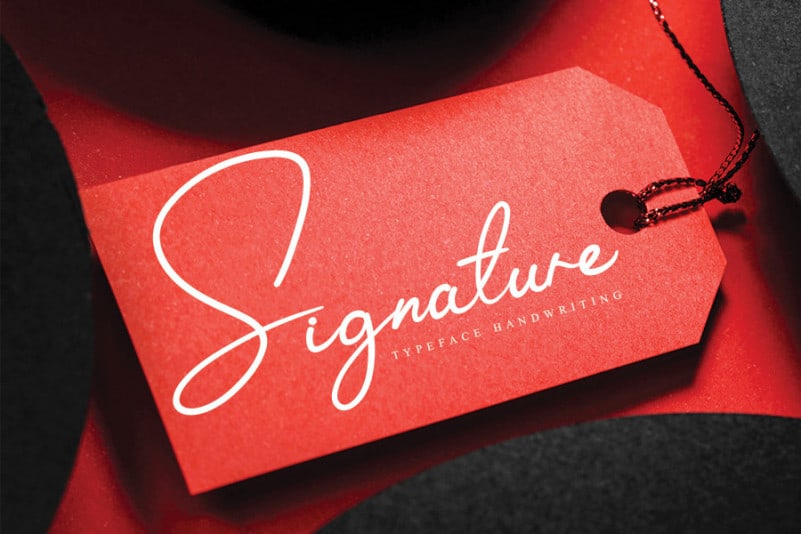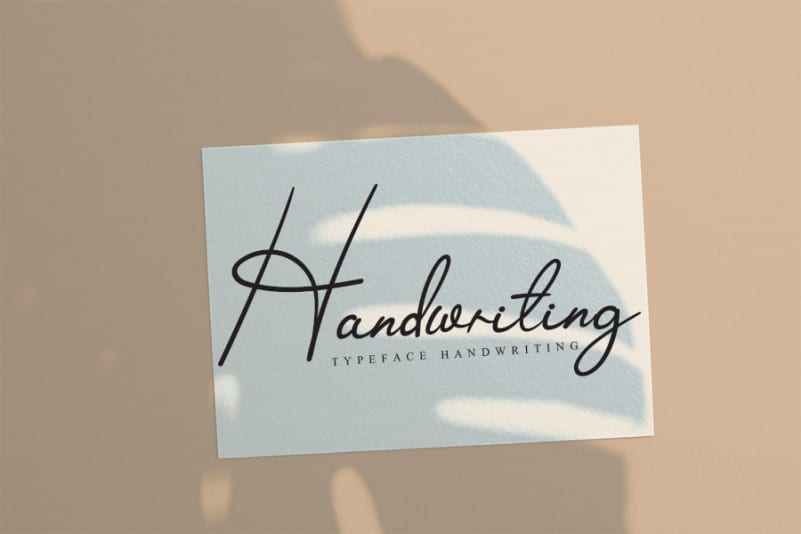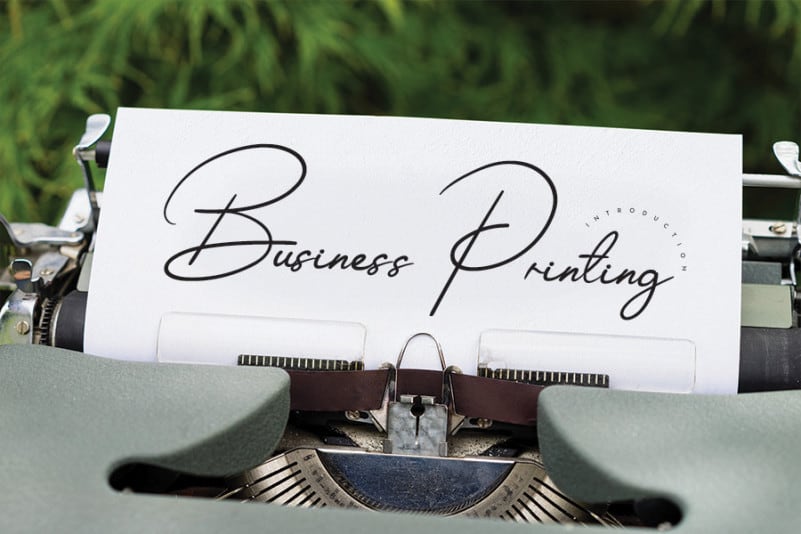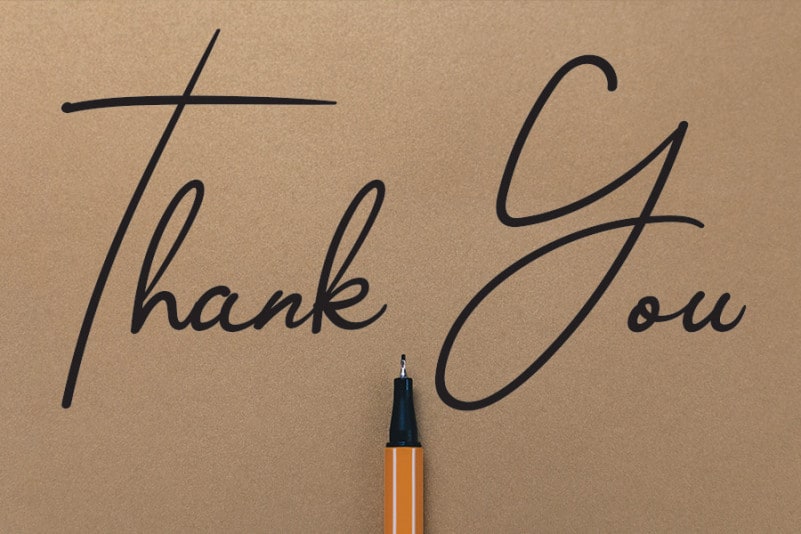
Camelliani Script Font
Camelliani Script Font is a delicate and natural script font. It has beautiful and well balanced characters and as a result, it matches a wide pool of designs. Add it to your most creative ideas and notice how it makes them come alive!